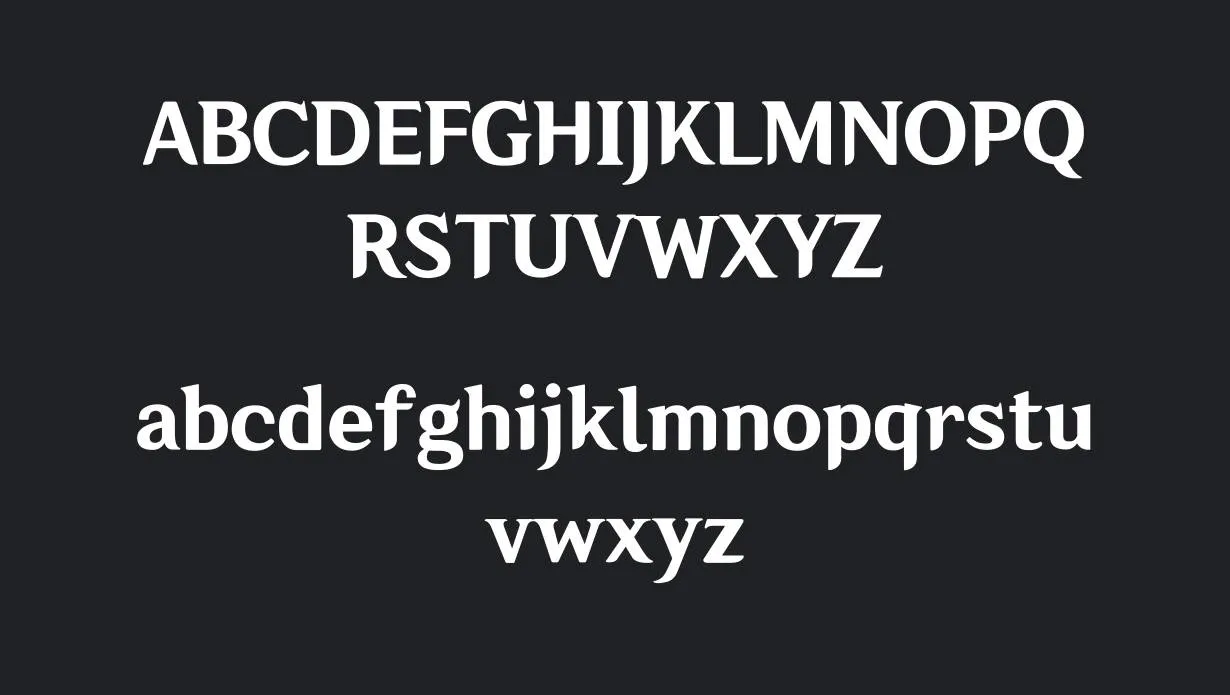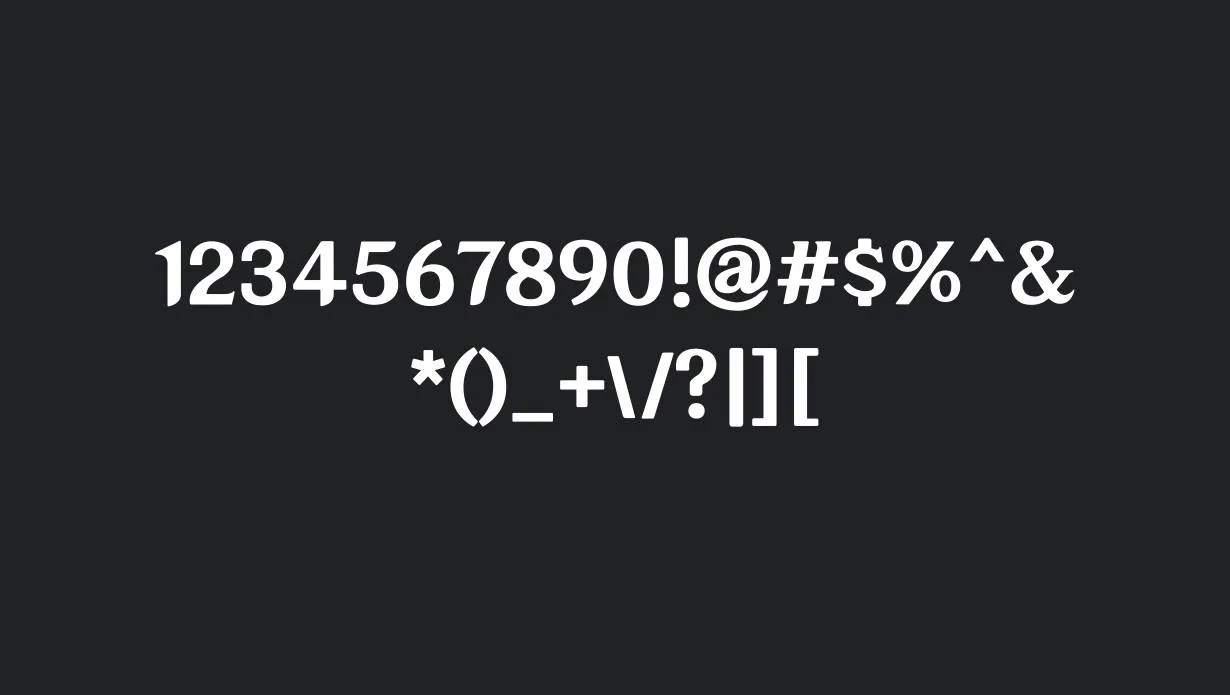
Genshin Impact Font is a Display font that was created by miHoYo, Genshin Impact is an anime-style game. The original font used in its logo is similar to HYWenhei Chinese Font, the designer made some modifications and gave it a Japanese-style appearance.
| Name | Genshin Impact Font |
| Designer | miHoYo |